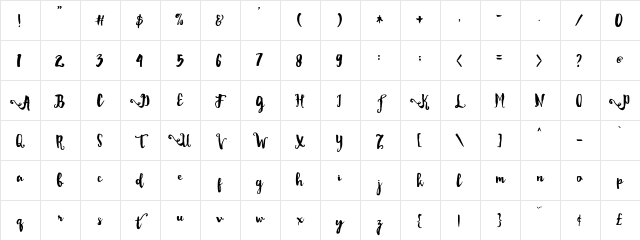
Dality Regular
Design Context for Dality
Dality is a composed and adaptable typeface that performs quietly and consistently across a wide range of design contexts.
Pro Tip: Use Dality in both headline and body roles to test its range before committing to a single application.